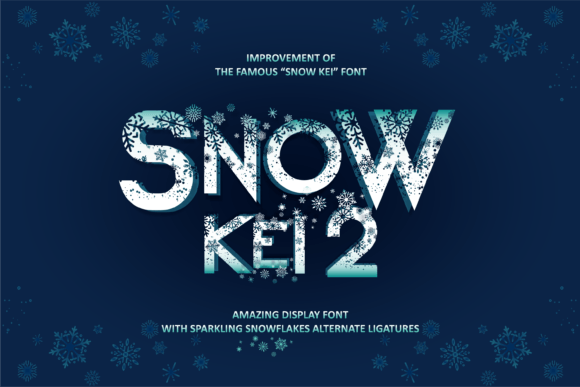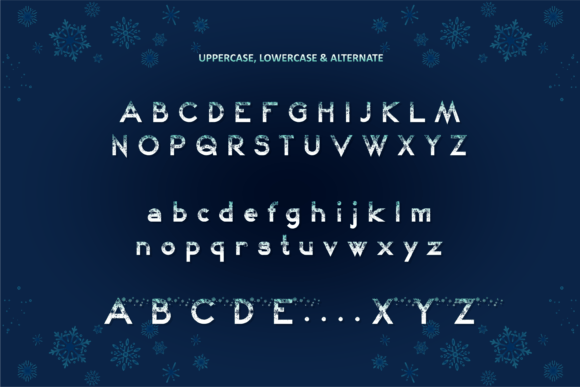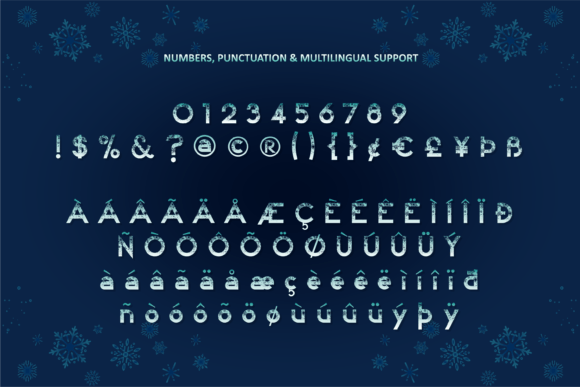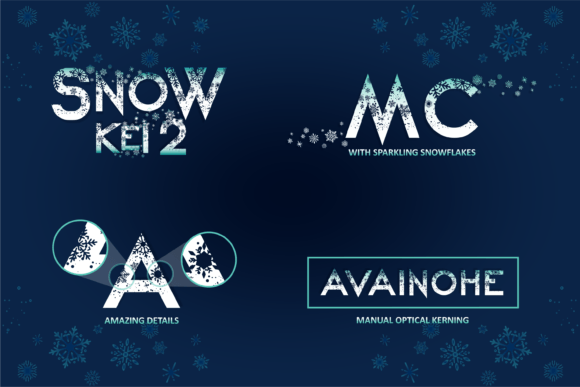
Snow Kei 2 Font
Snow Kei 2 is a display font. This amazing font is inspired by classic typography and brings its own unique style to any design project.